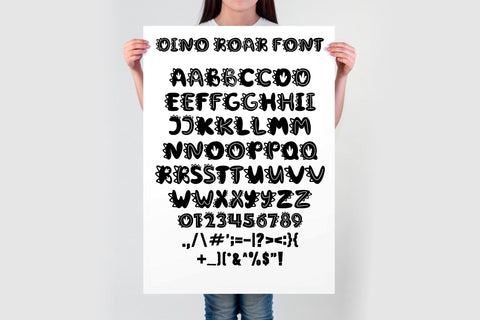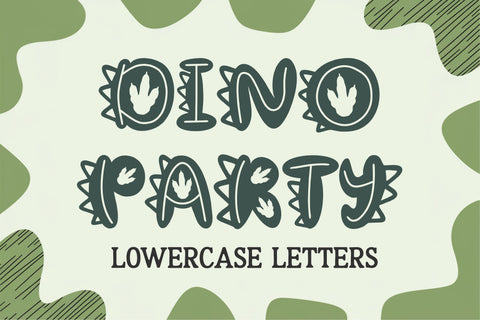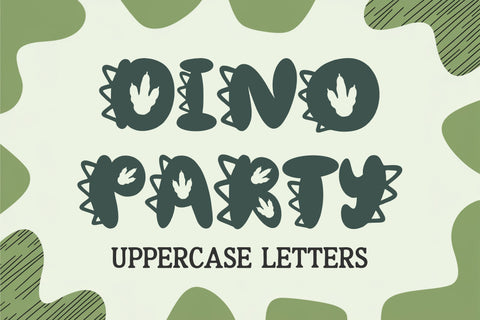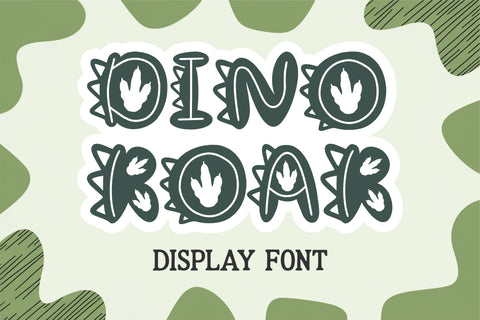
The Dino Roar Font is a bold and playful dinosaur-inspired typeface featuring spiky, prehistoric letters with embedded dinosaur footprints. Perfect for crafting projects, kids’ birthday invitations, t-shirts, and jungle-themed party decorations.
✔ Dino Roar Font – A fun and prehistoric display font
✔ Full Alphabet (A-Z), Numbers, and Symbols
Perfect For:
🦖 Dinosaur-Themed Birthday Invitations
🎨 T-Shirts, Stickers & Crafting Projects
📢 Party Banners, Logos & Jungle-Themed Decor
📖 Educational Worksheets & Kids’ Learning Activities
🔨 DIY Cricut & Silhouette Cutting Crafts
🎁 Gift Tags, Labels & Dinosaur Printables